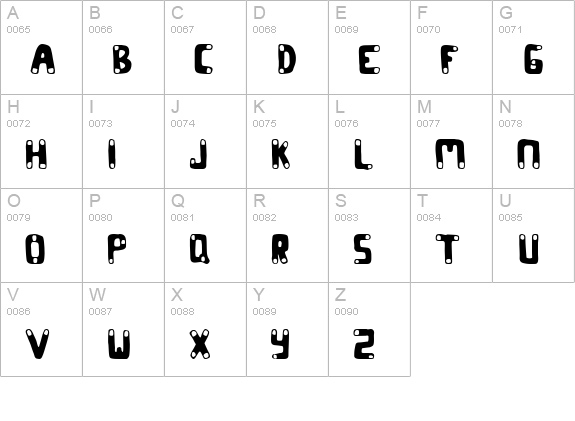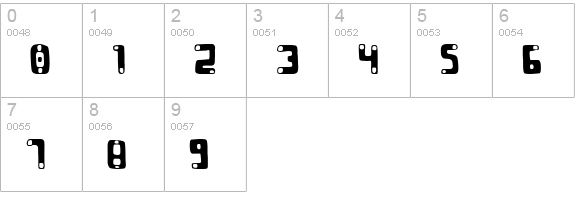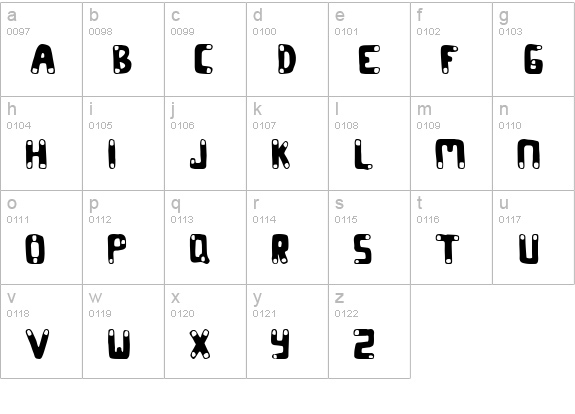
CODON Font Details
CODON font is a modern and stylish typeface that will elevate any design project to the next level. Its sleek lines and geometric shapes make it perfect for a wide range of applications, from logos to headlines to posters. The versatility of CODON font allows it to be used in both digital and print media with ease, making it a must-have for any designer looking to make a statement. What sets CODON font apart is not only its aesthetic appeal, but also the fact that it is completely free to download. You can easily access this font at FontsMarket.com, where you can find a wide selection of high-quality fonts for all your design needs. Whether you're a seasoned professional or just starting out, CODON font is sure to become a go-to choice for your creative projects. Download it today and see the difference it can make in your designs.